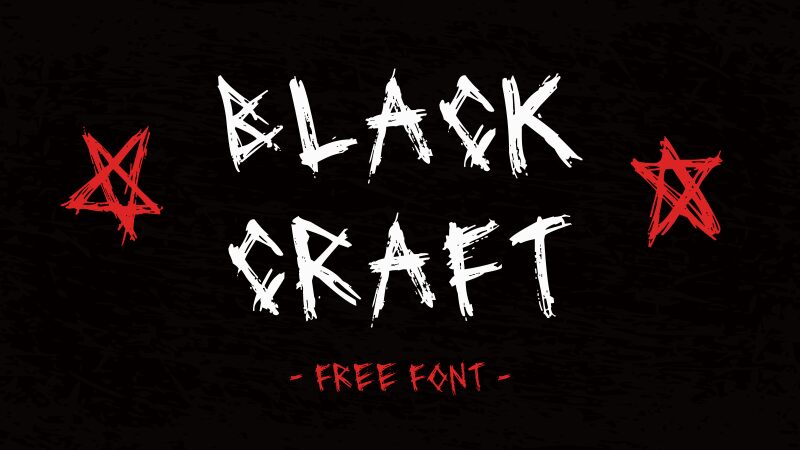
Blackcraft is a scary font, created by GGBotNet and licensed for free download. The font can be used for posters, t-shirt prints, stickers, banners, social media posts, album covers, or logos. This can be used in horror movie titles, band names, and horror books and games or any medium that deals with horror and the paranormal.
Blackcraft